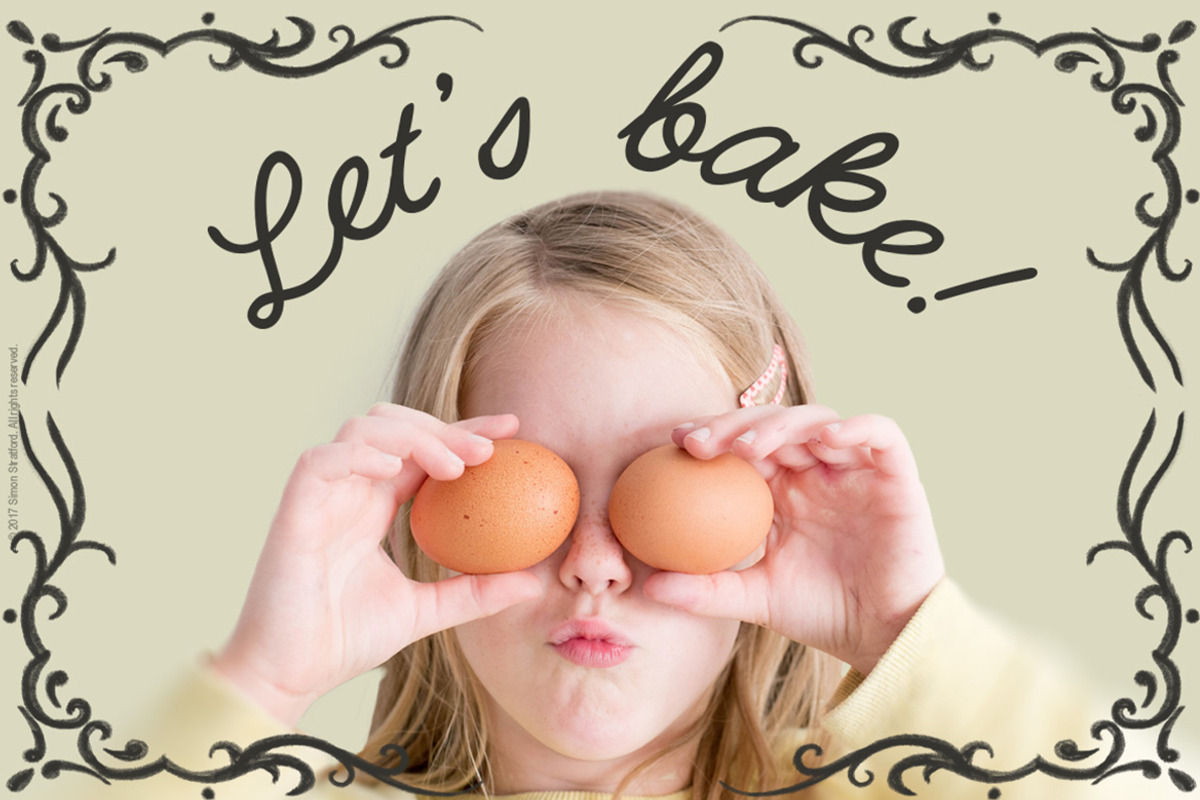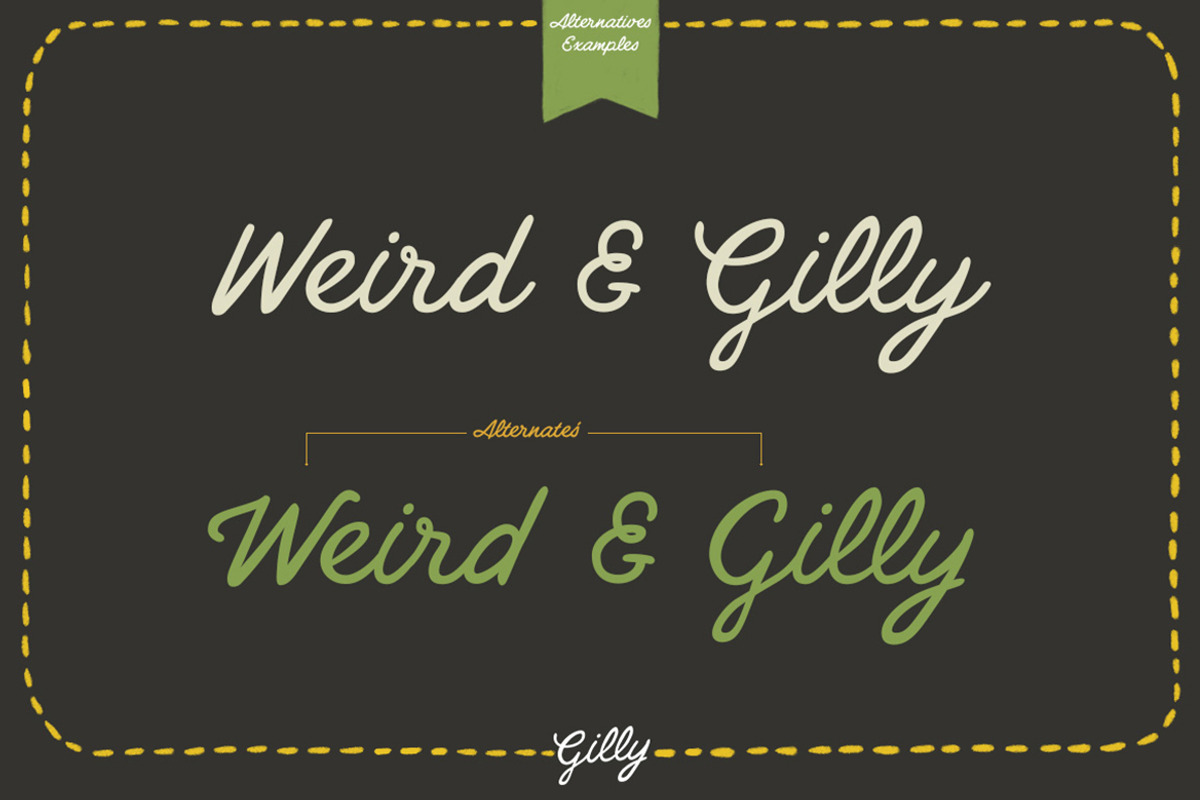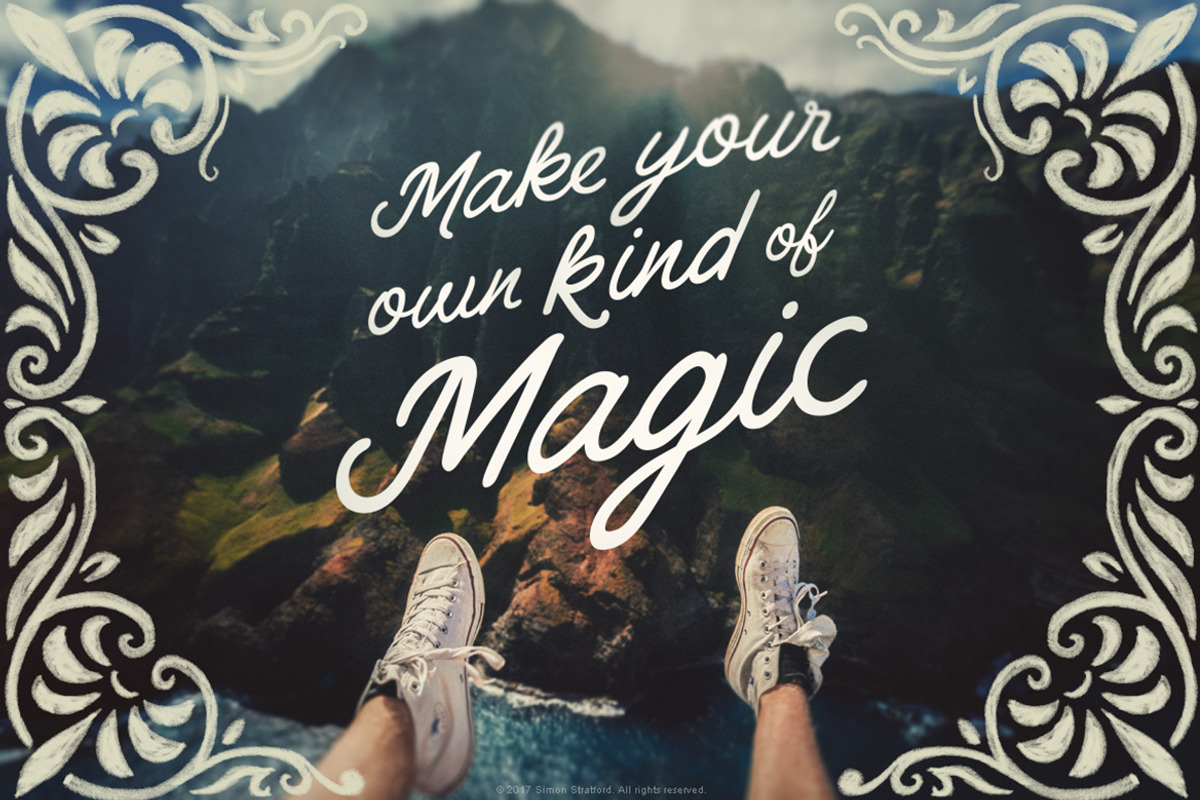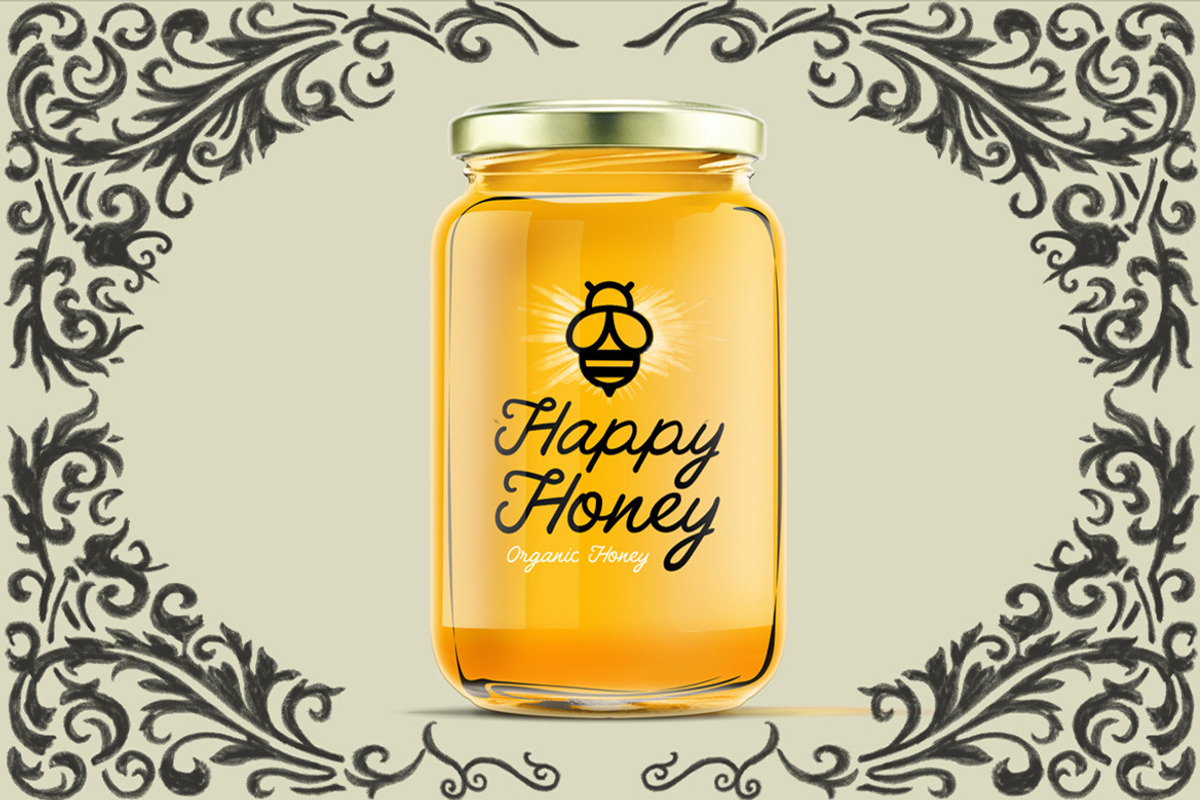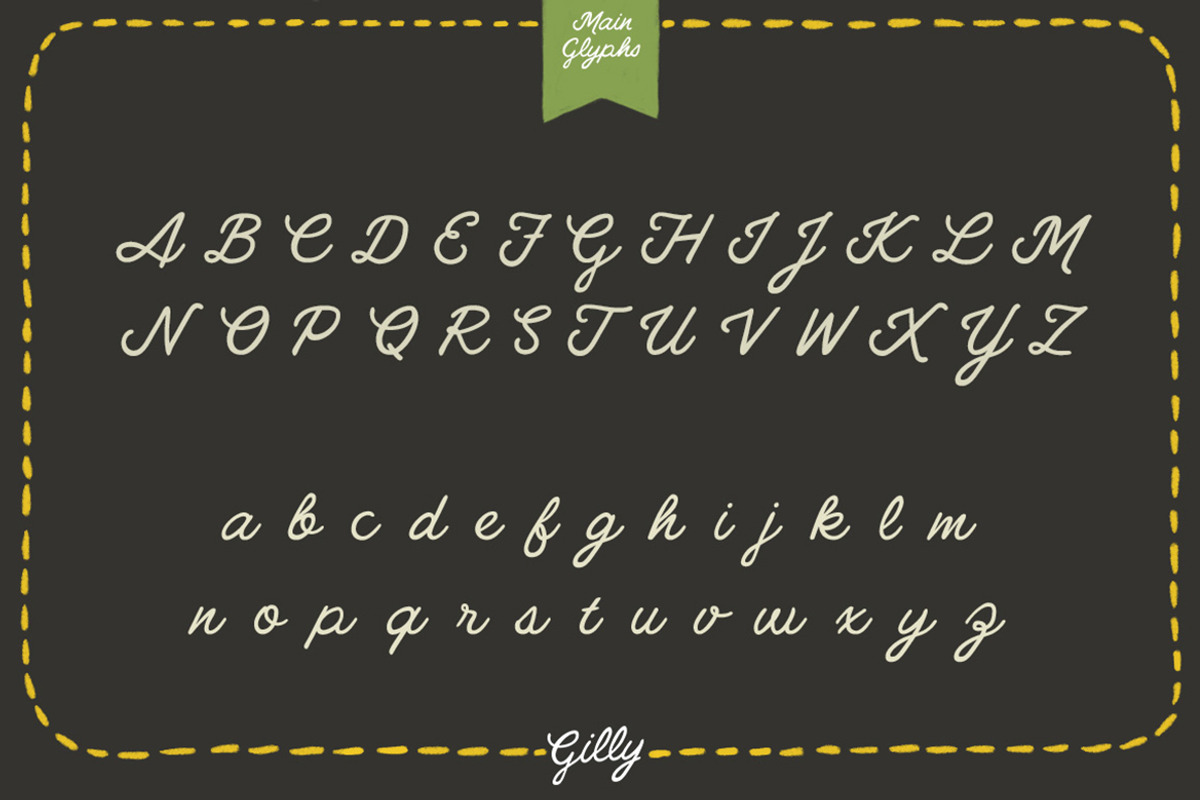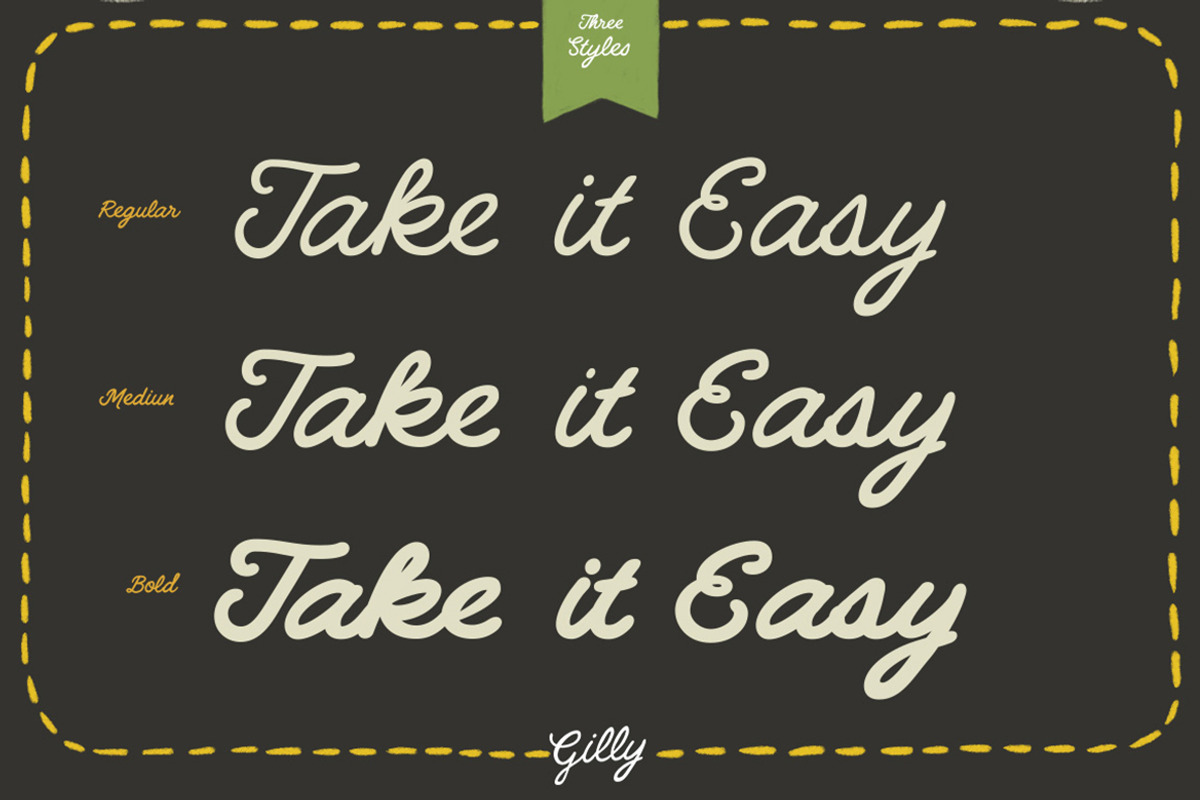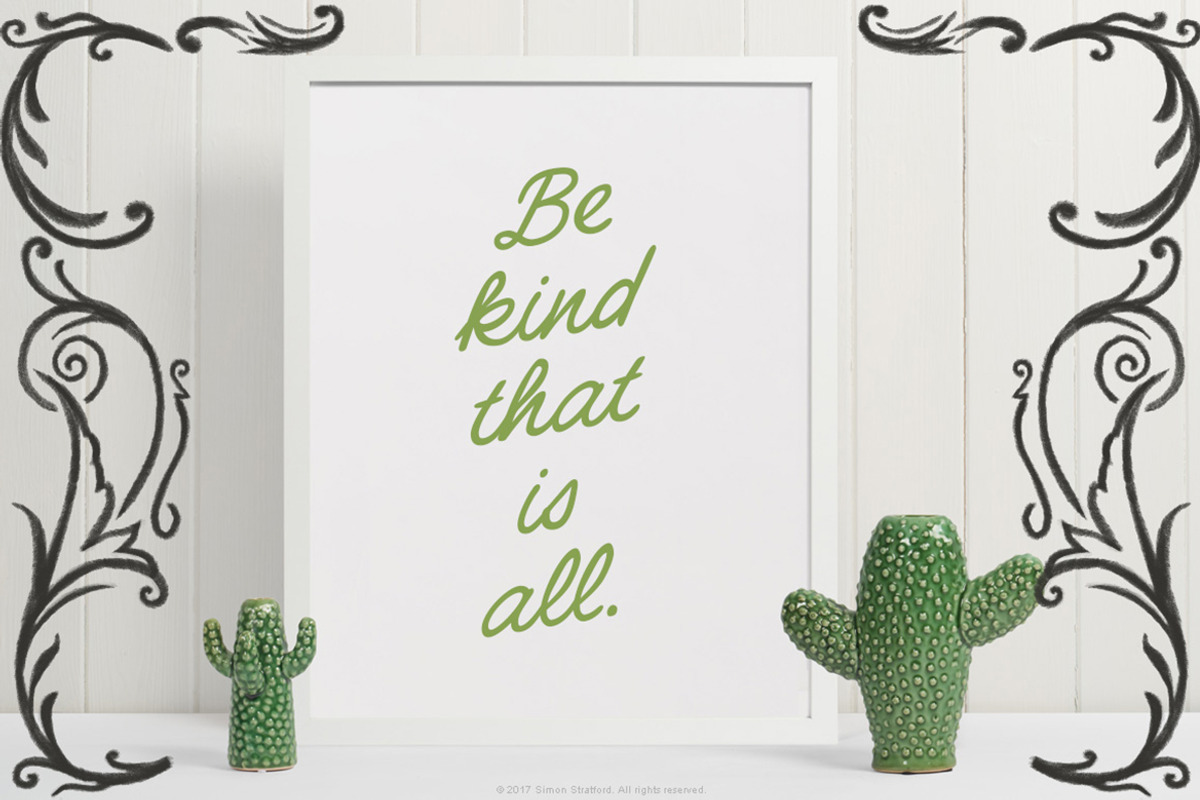
Gilly handmade script font with alternates
Gilly script is handmade cursive typeface. I got the inspiration for the font from hand-painted American signage and posters. I intended to create a natural but casual looking script font.
Its fun, casual and has large bold lines that have a somewhat retro look and feel. It also comes in three weights regular, medium and bold.
Handwritten Script font
With its handwritten style, Gilly would be great for stationery, wedding invitations and cards, branding, packaging, logos, titles and slogans or anything where you want that handwritten cursive look and feel.
I like to compare fonts to celebrities; If Gilly Script were a celebrity, it would be more Kristen Wiig than Keira Knightley—think Bridesmaids and wedding showers!
Contextual Alternatives
Gilly script comes with charming alternates, ligatures, and a few initial and terminal forms.
Using the power of contextual alternatives in your design application you can quickly change each character. With contextual OpenType feature turned on, watch the letters change as you type.
Uppercase and lowercase characters
Standard symbols and marks
Three weights regular, medium and bold
It also includes support for Western, Central, and southeastern European languages.